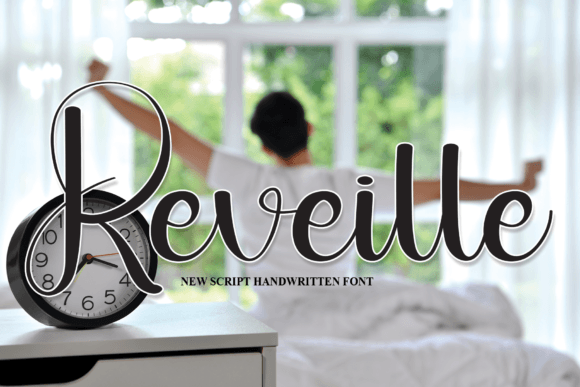
Welcome to the world of Reveille Font, a charming and enchanting script font that will captivate your senses and bring a touch of joy and warmth to all your creative endeavors. Dive into the beauty of its flowing curves, its graceful strokes, and its playful personality that will transform your words into works of art.
Reveille Font is not just another font; it's an experience. Imagine the joy of crafting wedding invitations that exude romance and elegance, or creating greeting cards that come alive with heartfelt messages. Its friendly and approachable nature makes it the perfect choice for adding a personal touch to any project, be it a logo design, a book cover, or a social media post.
With Reveille Font, you can unleash your creativity and explore a world of endless possibilities. Its versatility knows no bounds, allowing you to effortlessly create designs that are both timeless and captivating. Whether you're a seasoned designer or just starting your creative journey, Reveille Font will elevate your work to new heights.
Embrace the beauty of Reveille Font and let your imagination run wild. Adorn your designs with its playful charm, add a touch of whimsy to your creations, and watch as your projects come to life with an irresistible allure. Experience the magic of Reveille Font today and embark on a creative journey that will leave you inspired and amazed.